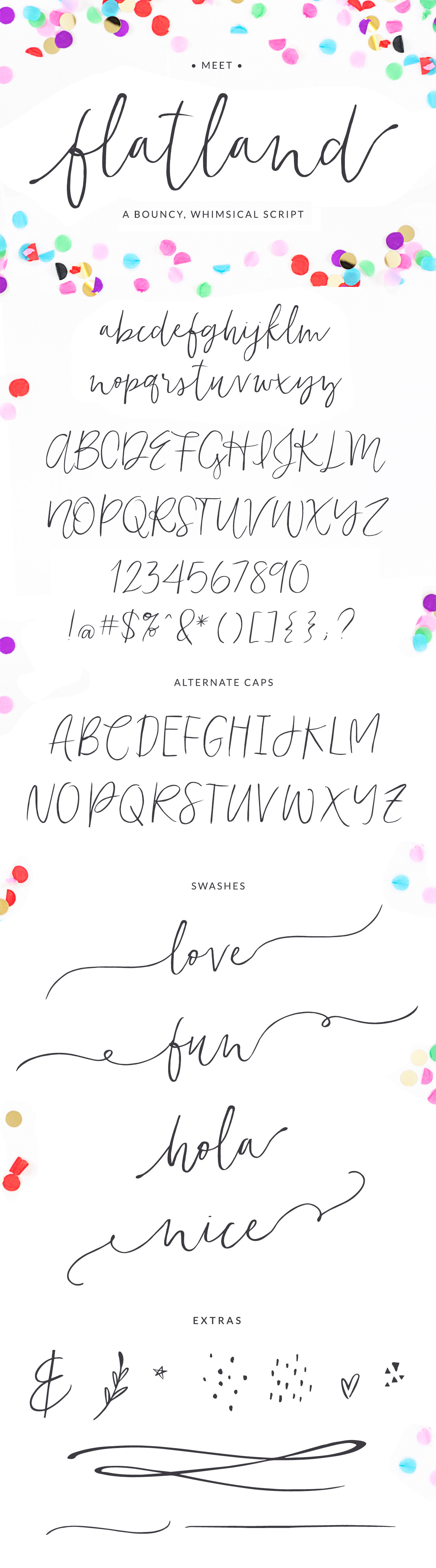
Flatland Font
Meet Flatland, a bouncy, whimsical script with a shifting baseline and a modern calligraphy vibe. Flatland features 3 handcrafted fonts that go swimmingly together.
This font would be perfect for use in branding, invitations, signage, wedding branding, print, on tangible goods, and so much more.
International support for most Western European languages is also included.